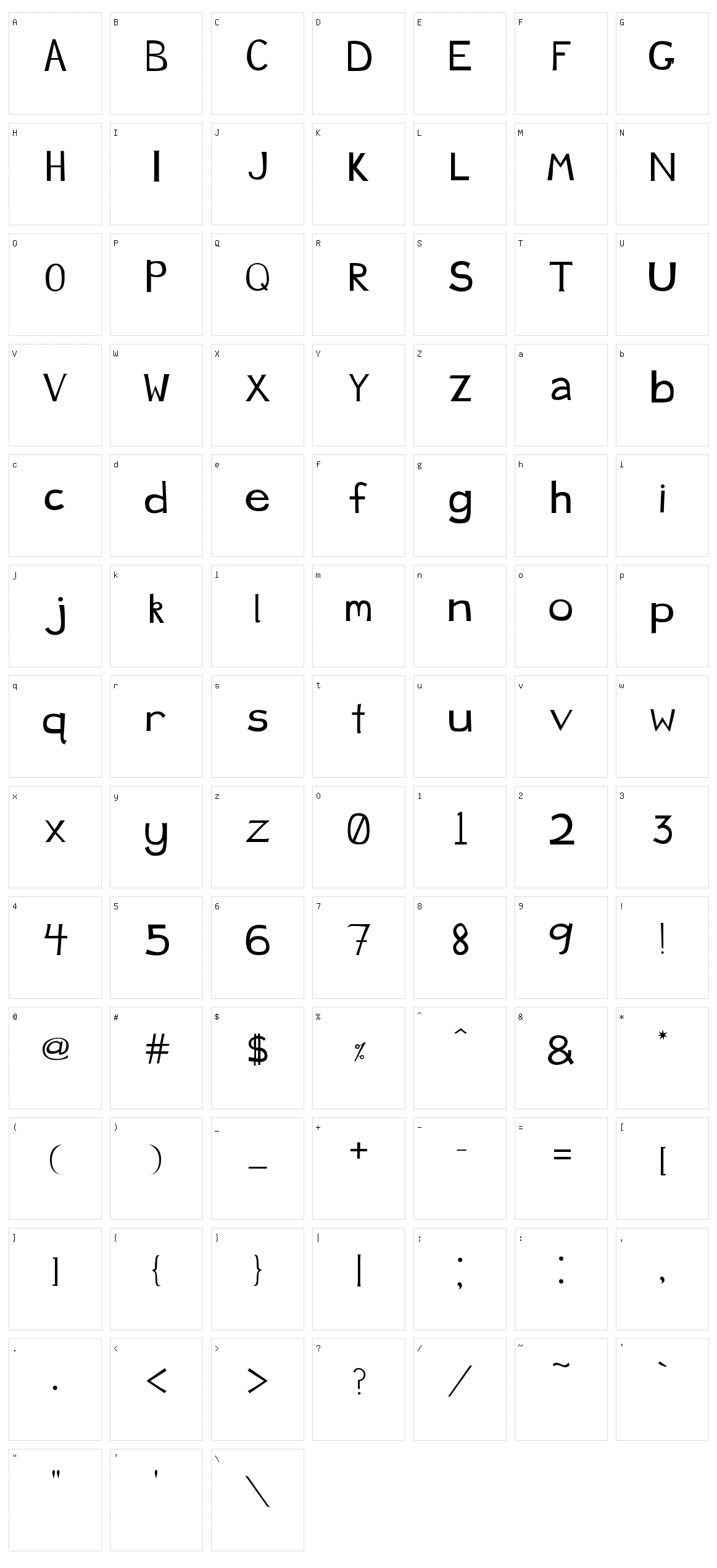
Hallo! This is my font, "Just Ducky".
It's supposed to be cute, and it's a pretty funky mix of serif and sans-serif, because that is just how I roll. Use it, share if you'd like, UNDER THE CONDITIONS THAT WHERE IT IS USED AND SHARED, YOU CREDIT ME & LET ME KNOW, because this is my first 'real' font, and it took me a long, long time.
Also don't use it for evil. I'm not sure how you could use a font for evil, but if you're using it for something morally questionable, please choose another font. This font doesn't even begin to look suited for evil, anyway. Surely evil is all serifs?
Sorry if any of the punctuation marks look too skinny; I made a font that *I* like, so it's quirkier than most.